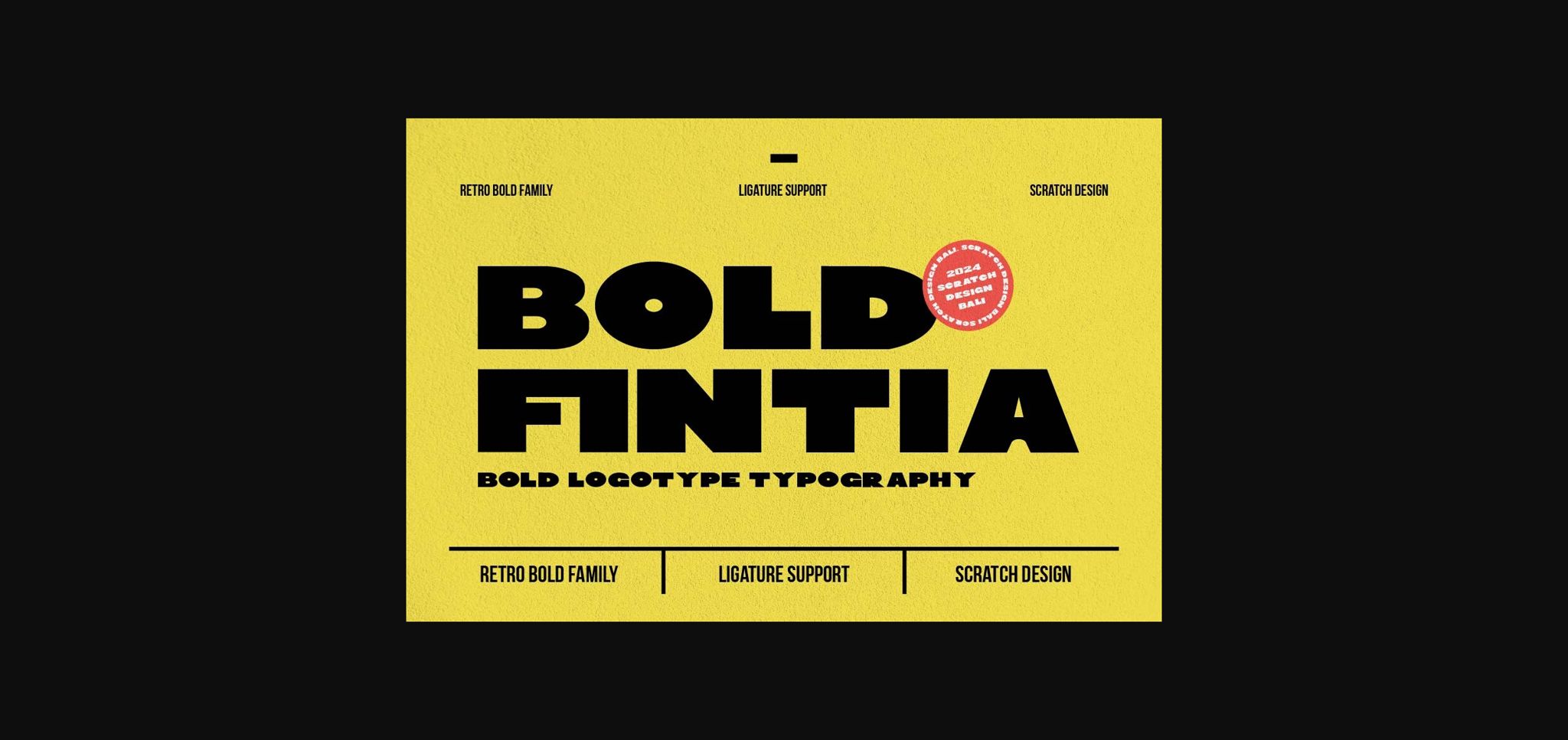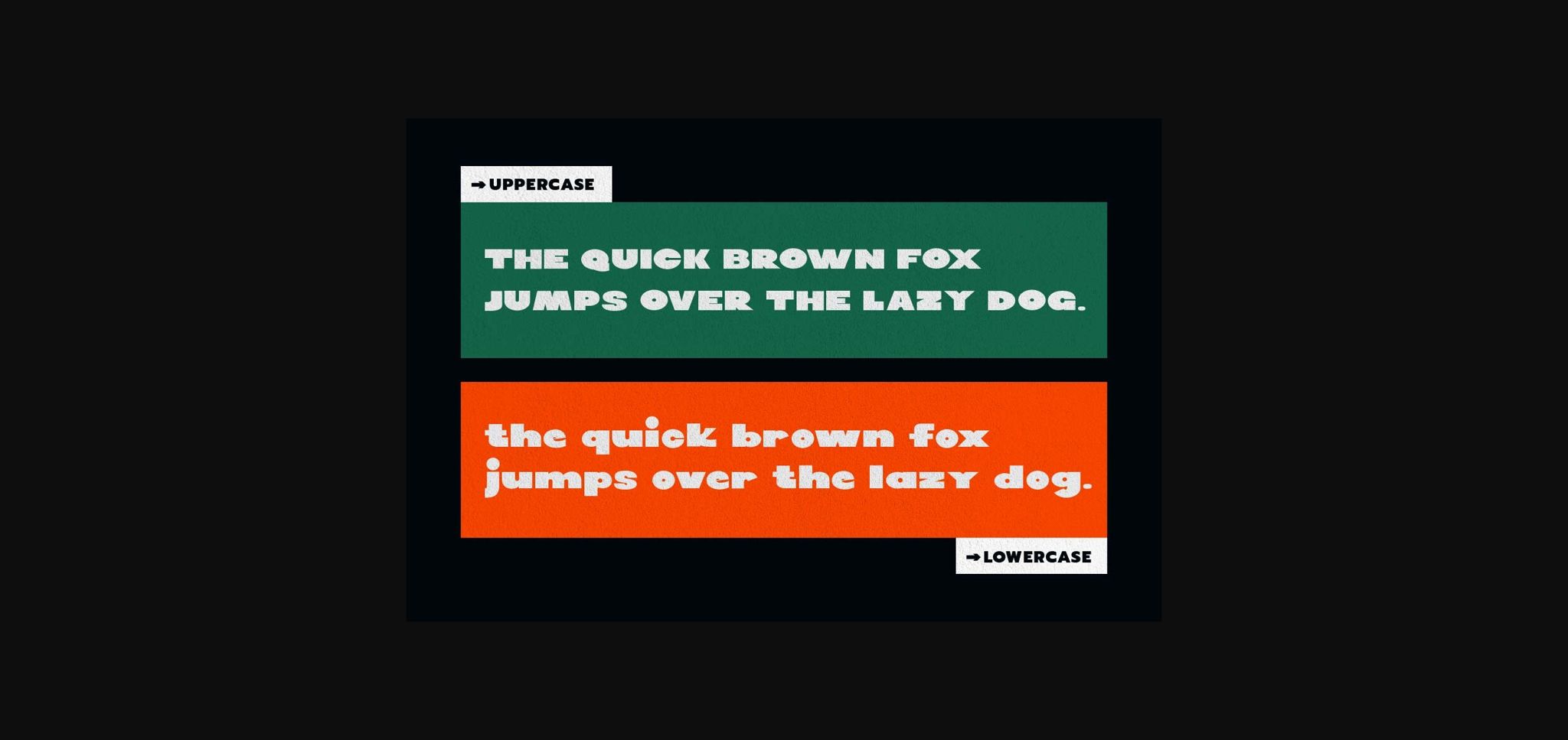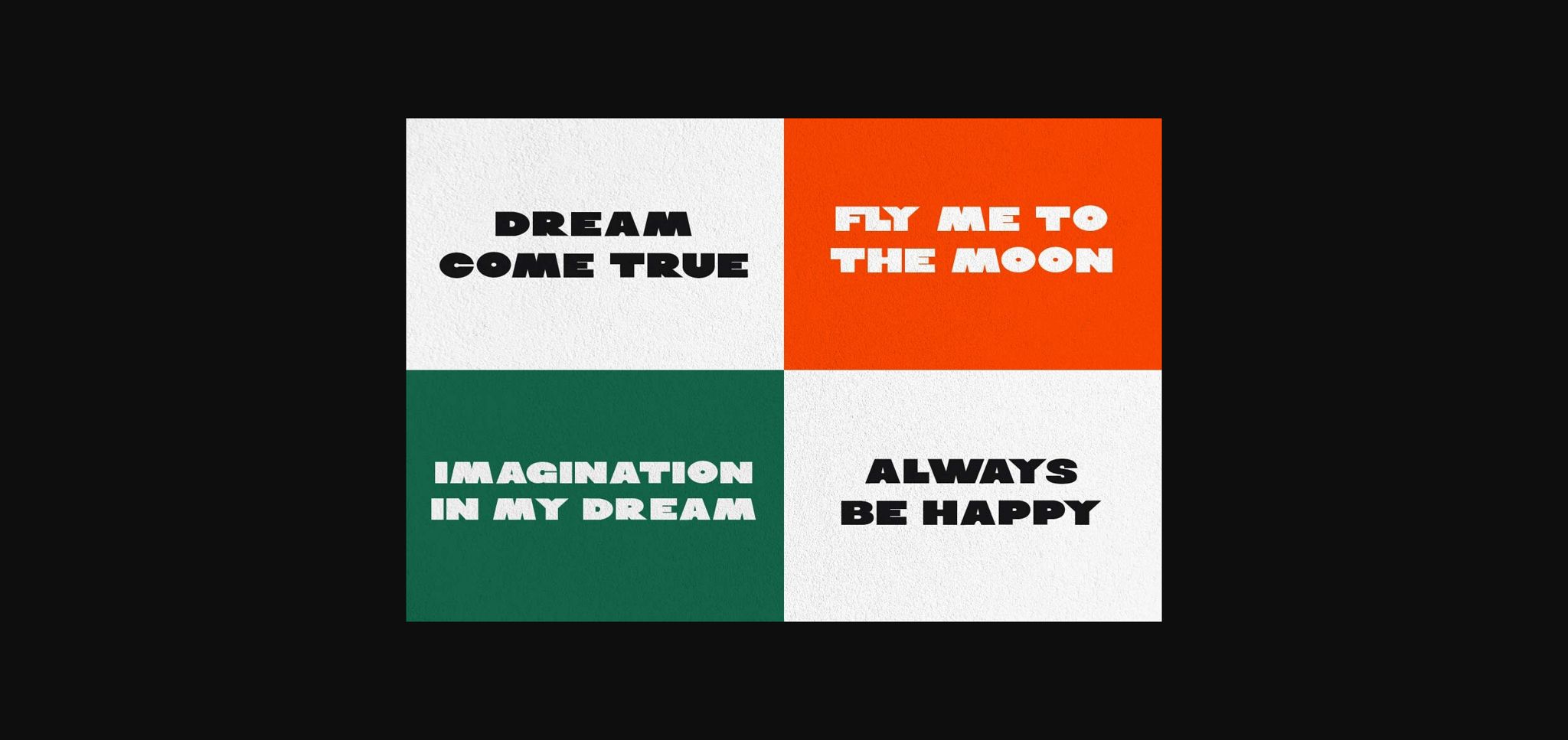
About Bold Fintia Font
This font is a big, chunky, and retro display font that is suitable for headers and text. Not only big, but this font has geometric shapes that can make your designs stand out. This font is perfect for headlines, logos, websites, brandings, packaging, posters, labels, and other designs that need an eye-catching font.